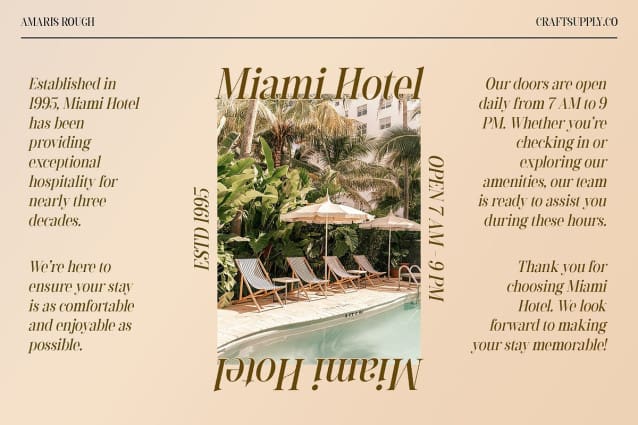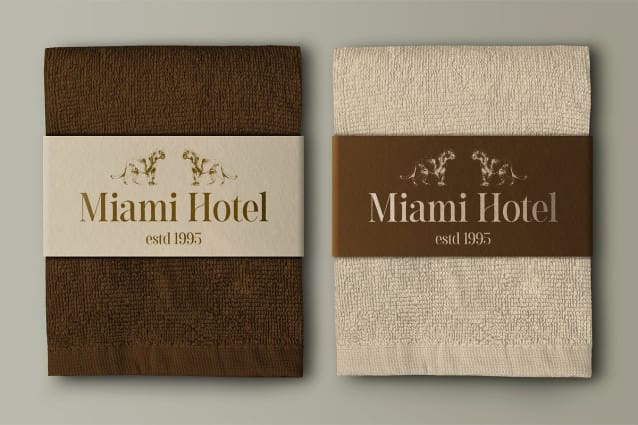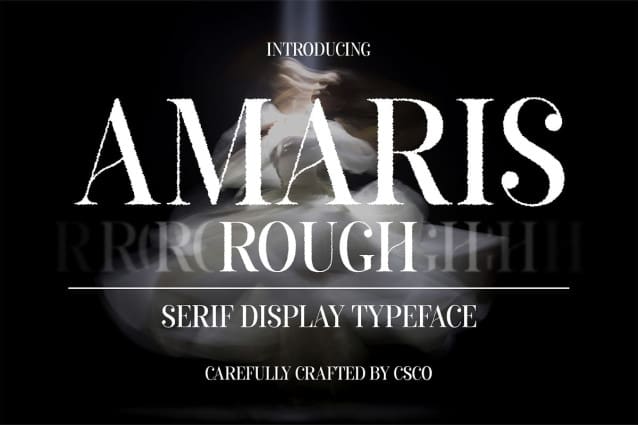
Amaris Rough Font
Amaris Rough Font is a serif font that masterfully combines the elegance of classic typography with the nostalgic charm of retro design. Its rough texture adds a layer of depth, making it stand out in any vintage-inspired project.
Sophisticated Yet Gritty Aesthetic The rough texture of Amaris Rough provides a gritty, tactile feel, perfect for designs that seek a balance between sophistication and a raw, authentic look. This font is ideal for projects like branding, where you want to convey both refinement and a sense of history.
Perfect for Vintage Designs Whether you’re working on posters, editorial layouts, or packaging, Amaris Rough offers a vintage appeal that enhances the overall aesthetic. Its retro charm and unique texture make it a versatile choice for designers looking to evoke a sense of timeless style.
Versatile Application Amaris Rough isn’t just for vintage designs; its combination of elegance and rough texture allows it to be used in a variety of contexts. From logos to promotional materials, this font adds character and distinction, making your designs memorable and impactful.